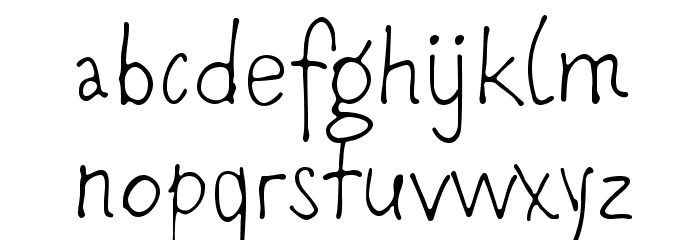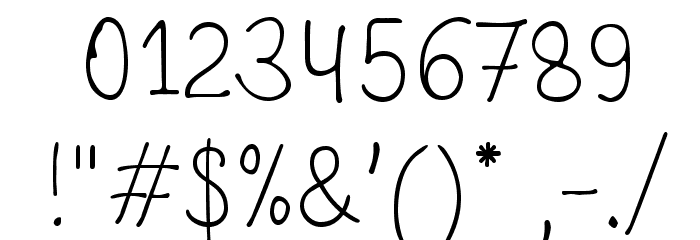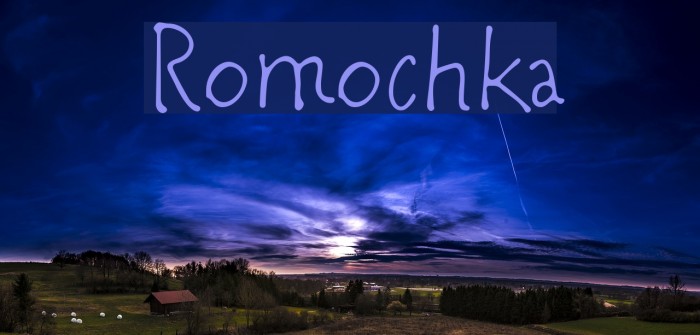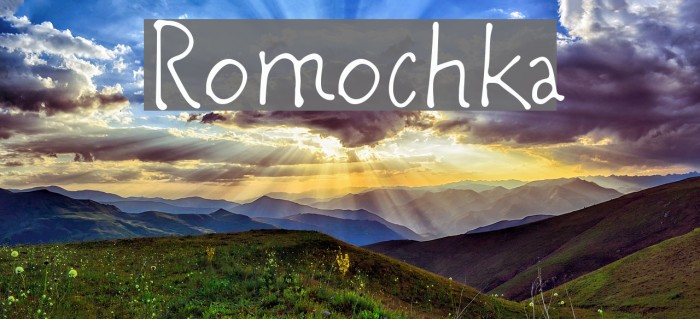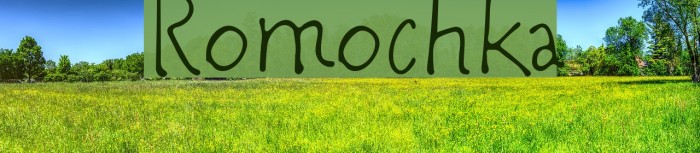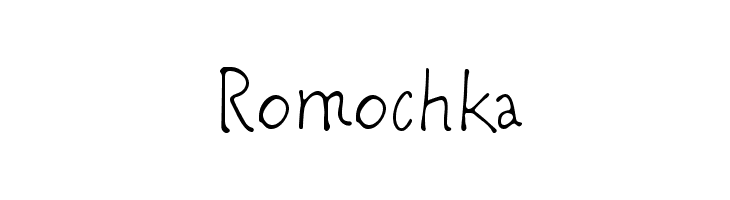
Romochka Font
This font features a playful, handwritten style with a casual and informal appearance. The letters are slightly irregular, giving it a whimsical and friendly feel. The strokes are uneven, with varying thickness that adds to its charm. The uppercase letters are tall and narrow, while the lowercase letters maintain a consistent height, creating a cohesive look. The numbers and special characters follow the same playful style, making it suitable for creative projects. The overall design is approachable and versatile, perfect for adding a personal touch to any text.
A playful, handwritten font with a whimsical and friendly style.
- Proposed Projects: Ideal for children's books, greeting cards, casual invitations, and creative branding.
- Overall Style: Casual
- Use Case: Headlines, Logos, Invitations